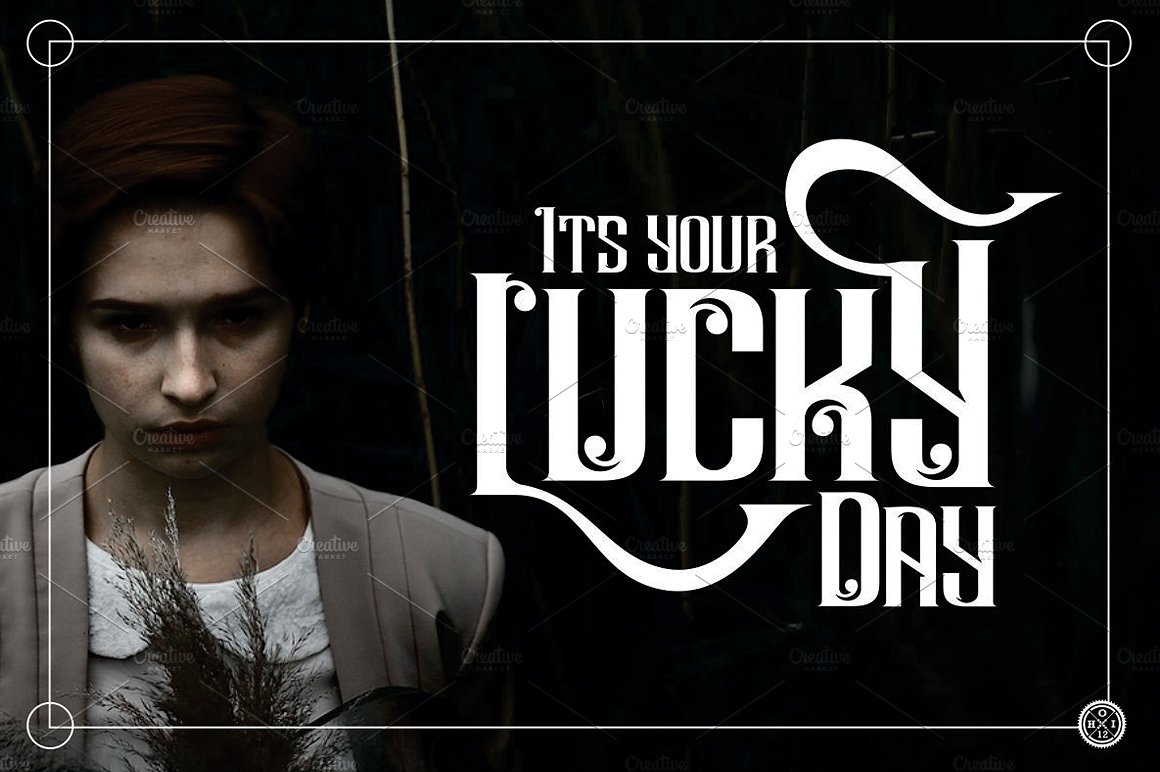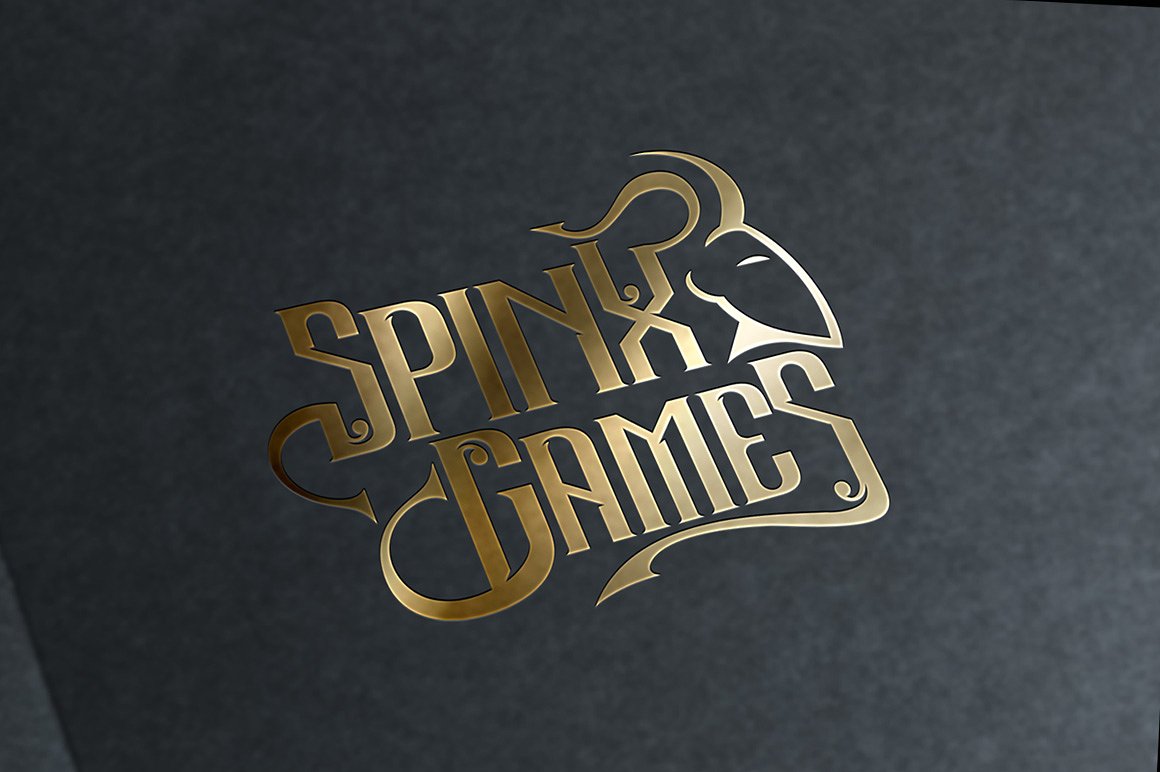
Andalas Typeface
Introducing a new display vintage font. comes with uppercase, lowercase, numerals, punctuations and so many variations on each characters include opentype alternates Andalas Typeface is perfect for quotes, Logos, Apparel, Advertising, Packaging Design, Poster, Label etc.